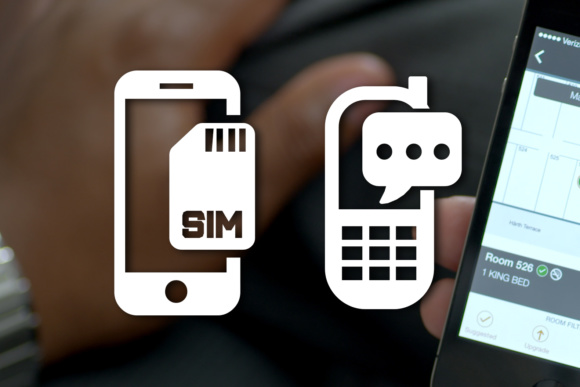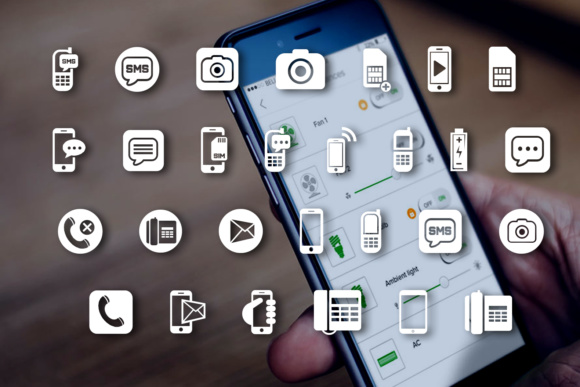
Introduction to Mobile Icons Font
Mobile Icons is an awesome dingbats font containing various mobile icon graphics.
Key Features of Mobile Icons Font
Why Choose Mobile Icons Font?
Mobile Icons Font offers exceptional quality and versatility, making it a valuable addition to your design toolkit. Whether you’re creating for personal projects or commercial use, Mobile Icons Font delivers professional results.